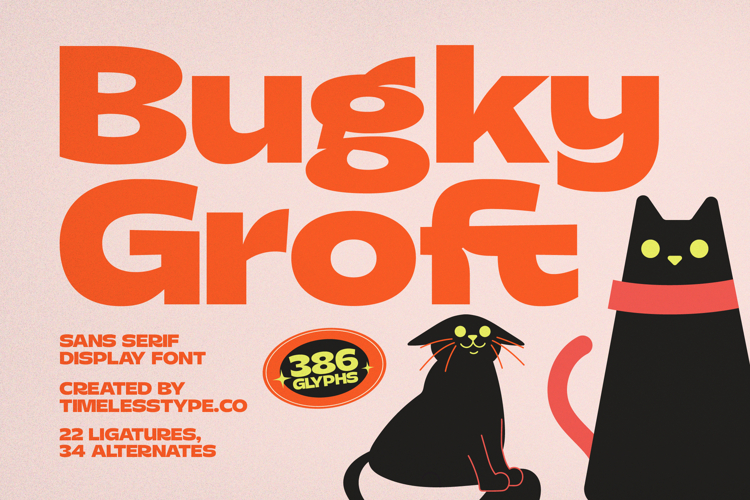
Bugky Groft - Groovy Sans Serif Display Font
Elevate your designs with the distinctive charm of Bugky Groft - Sans Serif Display Font. This typeface commands attention with its wonderfully bold and playful personality, characterized by uniquely rounded terminals and a captivatingly organic flow. Its robust, inviting forms create an immediate visual impact, perfect for projects requiring modern whimsy and approachable confidence. Bugky Groft - Sans Serif Display Font embodies a fresh aesthetic for memorable first impressions.
Unlock unparalleled creative possibilities with the comprehensive features of Bugky Groft - Sans Serif Display Font. Boasting 386 Glyphs, alongside 22 Ligatures and 34 Alternates, this font offers extensive customization to sculpt truly unique typographic compositions. It is perfect for modern branding, impactful headlines, engaging packaging, dynamic poster design, and any application demanding a bold, friendly statement. Its expressive character ensures your message is conveyed with presence.